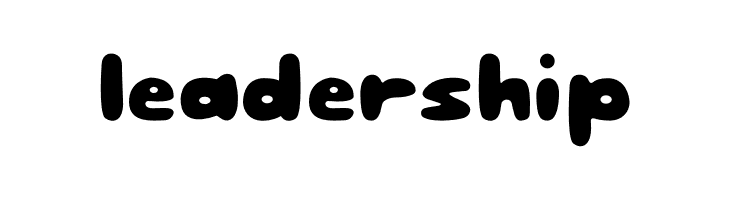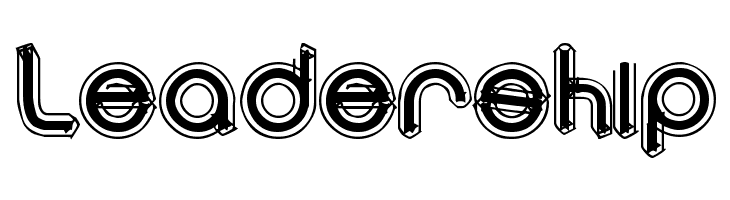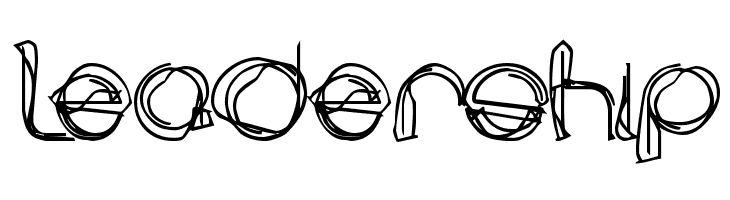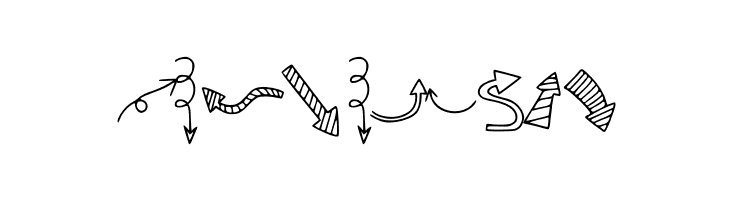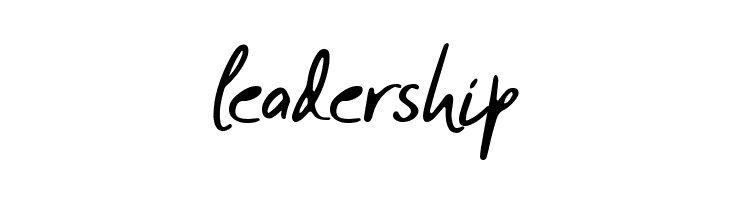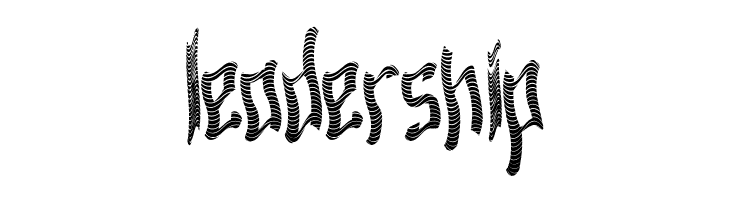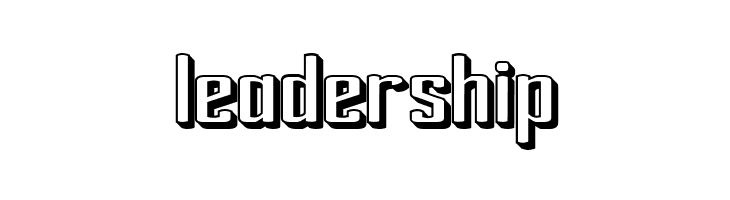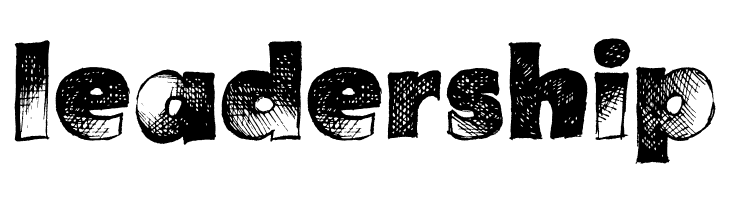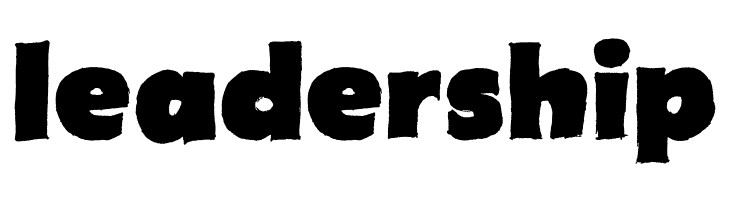
• Ardenwood Demo
An ornate blackletter font with intricate flourishes and a gothic style.
• Ardies
( Fonts by Ardi Santoso )
A playful, hand-drawn font with bold, irregular strokes and a casual vibe.
• Ardila
An elegant, flowing script font with a classic calligraphic style.
• Ardillah Kafi
A bold blackletter font with sharp, angular lines and a dramatic presence.
• Ardillah Kafi
A bold, gothic-inspired font with sharp, angular edges and a strong presence.
• Ardinia Demo
A flowing, cursive script font with elegant, interconnected strokes.
• Ardneran
An artistic and whimsical font with elongated, flowing letterforms.
• Ardolint Tijza
( Fonts by Mabhal Studio )
Casual handwritten script font.
• Ardot
( Fonts by Muhammad Yafinuha )
Hand-drawn, sketch-style arrows and symbols with a casual, informal look.
• Ardour 3D GM
A bold, 3D geometric font with a striking shadow effect.
• Ardour GM
A bold, modern font with a geometric and slightly condensed style.
• Ardour Outline
• Ardour Waved
A dynamic, waved decorative font with a unique flowing texture.
• Ardsttandsille Personal Use Onl
A bold, flowing script font with high contrast and elegant curves.
• Are you awake Neo?
( Fonts by Mr Fisk - Mike Larsson - fontorama.net )
A distressed, hand-drawn font with a rugged, textured appearance.
• Are You Freakin Serious
( Misti's Fonts - mistifonts.com/ )
A playful, hand-drawn font with rounded, elongated characters.
• Are You Freakin' Serious
( mistifonts.com/ )